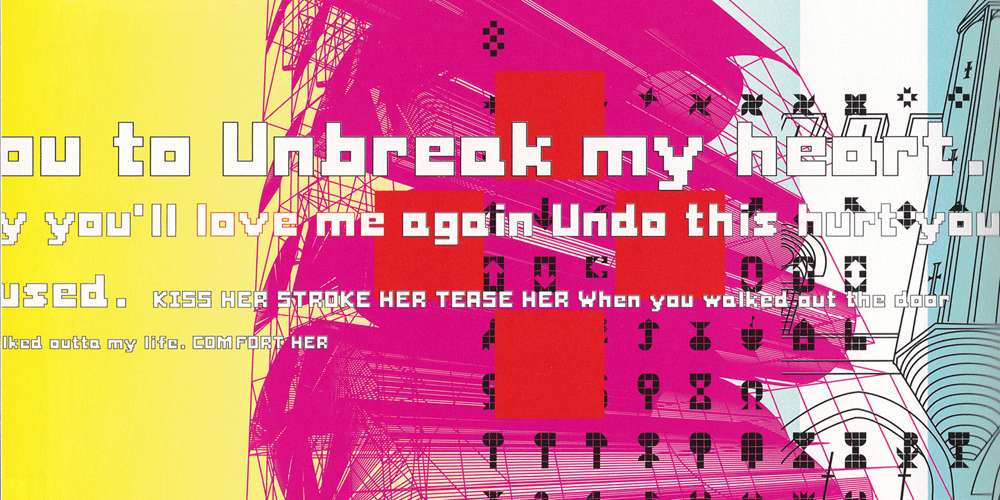
Pixel
Pixel font
Pixel Font Family was designed by Boris Kahl and published by Volcano Type. Pixel contains 2 styles and family package options. A very modern pixelstyled version of a “wildwest-font”. For all the real cowboys and cowgirls out there.